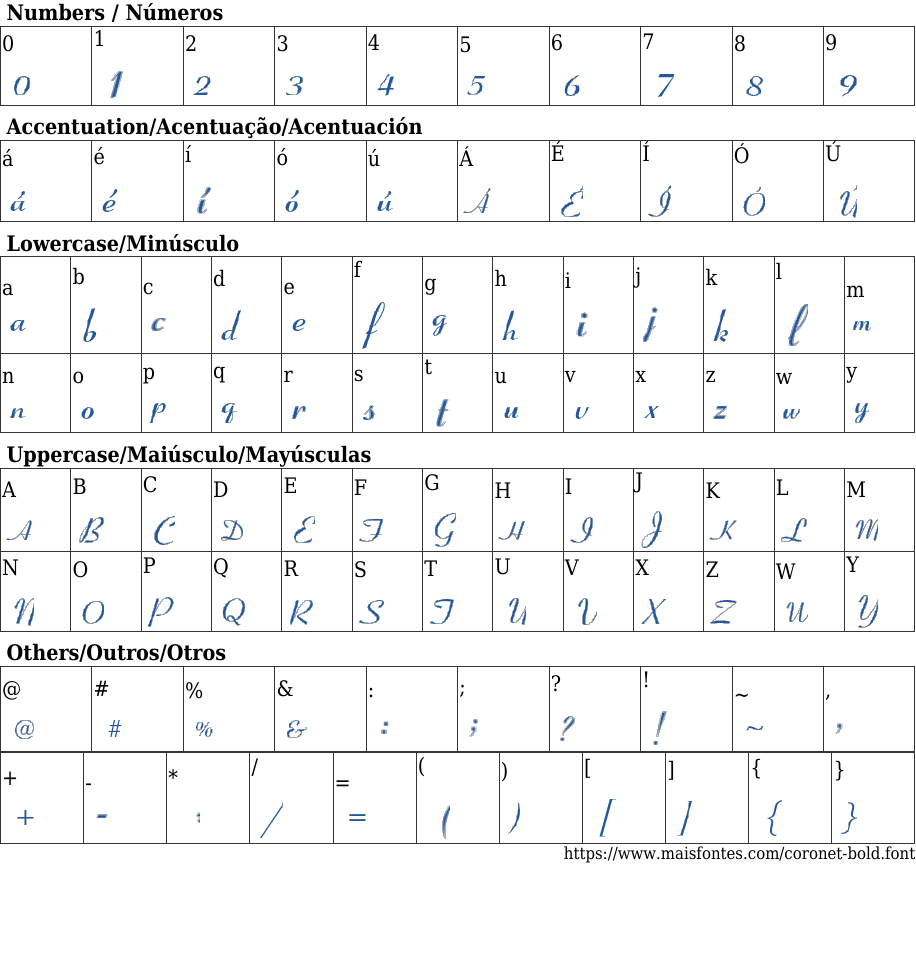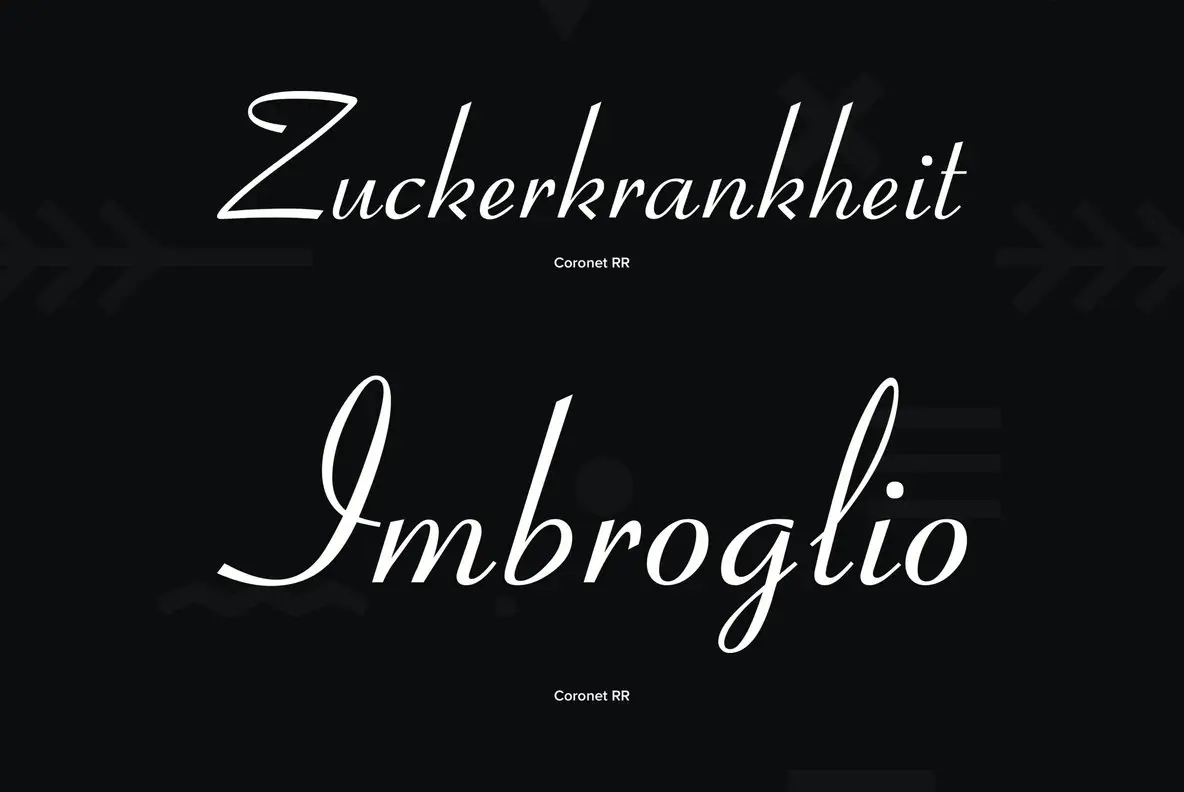
Coronet Rr Bold Font . coronet bold is the perfect font for all your fun designs. download coronet bold (rr), provided on fonts.com from international typefounders, inc. For windows in truetype, windows in postscript, mac in postscript thousands of designers (famous or not) use the image font detection system to find a font or similar free fonts. Middleton for ludlow, circa 1937. Moreover, you can embed it to your website with. The font family is coronet. fontsplace is the best place to download coronet bold for free. Download free and premium fonts. download coronet rr bold font. It will look stunning in many ways to your latest design. Digitally engineered by steve jackaman.
It will look stunning in many ways to your latest design. Download free and premium fonts. download coronet bold (rr), provided on fonts.com from international typefounders, inc. coronet bold is the perfect font for all your fun designs. thousands of designers (famous or not) use the image font detection system to find a font or similar free fonts. Middleton for ludlow, circa 1937. Digitally engineered by steve jackaman. download coronet rr bold font. Moreover, you can embed it to your website with. The font family is coronet.
Coronet Rr Bold Font coronet bold is the perfect font for all your fun designs. Moreover, you can embed it to your website with. thousands of designers (famous or not) use the image font detection system to find a font or similar free fonts. fontsplace is the best place to download coronet bold for free. The font family is coronet. For windows in truetype, windows in postscript, mac in postscript It will look stunning in many ways to your latest design. download coronet bold (rr), provided on fonts.com from international typefounders, inc. coronet bold is the perfect font for all your fun designs. download coronet rr bold font. Download free and premium fonts. Middleton for ludlow, circa 1937. Digitally engineered by steve jackaman.
font Font Tr Coronet Rr Bold Font Download free and premium fonts. download coronet rr bold font. Digitally engineered by steve jackaman. The font family is coronet. It will look stunning in many ways to your latest design. Middleton for ludlow, circa 1937. Moreover, you can embed it to your website with. For windows in truetype, windows in postscript, mac in postscript thousands of designers. Coronet Rr Bold Font.
Font Style, HD Png Download vhv Coronet Rr Bold Font Moreover, you can embed it to your website with. Middleton for ludlow, circa 1937. thousands of designers (famous or not) use the image font detection system to find a font or similar free fonts. coronet bold is the perfect font for all your fun designs. Digitally engineered by steve jackaman. download coronet bold (rr), provided on fonts.com. Coronet Rr Bold Font.
Download free Bold Italic font Coronet Rr Bold Font It will look stunning in many ways to your latest design. Middleton for ludlow, circa 1937. download coronet rr bold font. coronet bold is the perfect font for all your fun designs. Moreover, you can embed it to your website with. Digitally engineered by steve jackaman. Download free and premium fonts. thousands of designers (famous or not). Coronet Rr Bold Font.
Download free font, free Regular font for Windows Coronet Rr Bold Font For windows in truetype, windows in postscript, mac in postscript download coronet bold (rr), provided on fonts.com from international typefounders, inc. Middleton for ludlow, circa 1937. The font family is coronet. thousands of designers (famous or not) use the image font detection system to find a font or similar free fonts. Moreover, you can embed it to your. Coronet Rr Bold Font.
Bold Font FontYukle Coronet Rr Bold Font Download free and premium fonts. Digitally engineered by steve jackaman. It will look stunning in many ways to your latest design. The font family is coronet. download coronet bold (rr), provided on fonts.com from international typefounders, inc. Middleton for ludlow, circa 1937. coronet bold is the perfect font for all your fun designs. For windows in truetype, windows. Coronet Rr Bold Font.
Download free BoldItalic font Coronet Rr Bold Font It will look stunning in many ways to your latest design. Middleton for ludlow, circa 1937. download coronet bold (rr), provided on fonts.com from international typefounders, inc. fontsplace is the best place to download coronet bold for free. The font family is coronet. Moreover, you can embed it to your website with. Download free and premium fonts. . Coronet Rr Bold Font.
Download free Bold Italic font Coronet Rr Bold Font The font family is coronet. Moreover, you can embed it to your website with. thousands of designers (famous or not) use the image font detection system to find a font or similar free fonts. download coronet bold (rr), provided on fonts.com from international typefounders, inc. Middleton for ludlow, circa 1937. Download free and premium fonts. fontsplace is. Coronet Rr Bold Font.